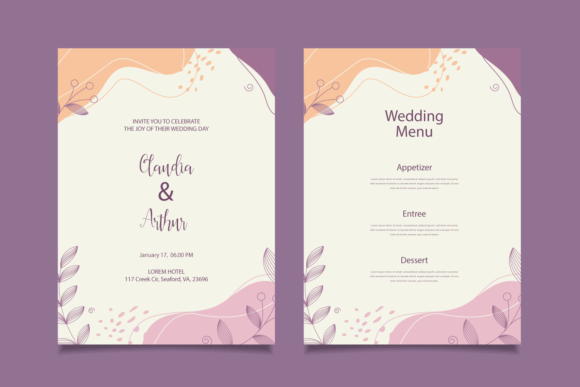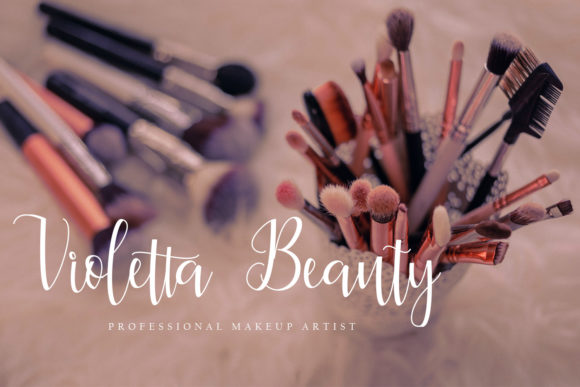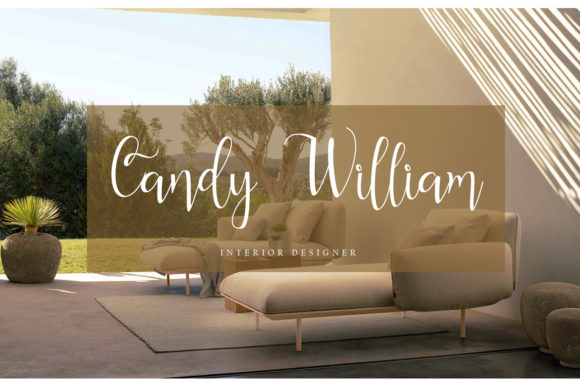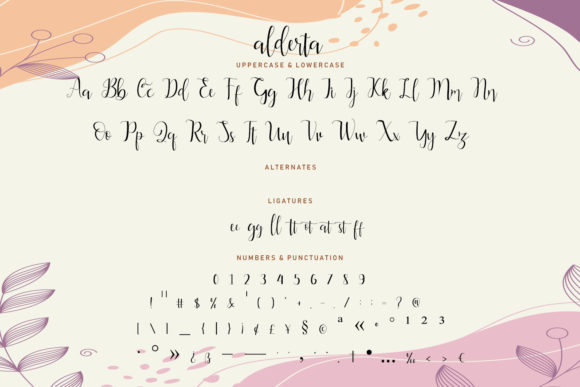
Discover the Elegance of Alderta Font: A Delicate Handwritten Masterpiece
In the world of typography, few fonts manage to capture the essence of elegance and delicacy as effectively as the Alderta Font. This beautifully crafted handwritten font has been making waves among designers and crafters alike, and for good reason. Its distinct, well-rounded letters and incredibly versatile style make it a masterpiece that can elevate any design project to new heights.
The Characteristics of Alderta Font
So, what sets Alderta Font apart from other fonts in its class? For starters, its delicate and elegant appearance is unmatched. Each letter is carefully crafted to exude a sense of refinement and sophistication, making it perfect for designs that require a touch of class. Whether you’re working on a branding project, a wedding invitation, or a packaging design, Alderta Font is sure to impress.
Another notable feature of Alderta Font is its versatility. This font is designed to be incredibly flexible, allowing you to use it in a wide range of design applications. From digital projects like social media graphics and website headers to print materials like brochures and business cards, Alderta Font adapts seamlessly to any design style.
The Benefits of PUA Encoding
One of the most significant advantages of Alderta Font is its PUA (Private Use Area) encoding. But what does this mean, exactly? In simple terms, PUA encoding allows you to access a wide range of glyphs and swashes with ease. This means that you can add an extra layer of creativity and personality to your designs, taking them from ordinary to extraordinary.
With PUA encoding, you can easily access alternative characters, ligatures, and swashes, giving you the freedom to experiment with different design elements. This feature is especially useful for designers who want to create unique and eye-catching designs that stand out from the crowd.
Why Designers and Crafters Love Alderta Font
So, why have designers and crafters fallen in love with Alderta Font? The answer lies in its unique combination of elegance, versatility, and creativity. Here are just a few reasons why this font has become a favorite among design enthusiasts:
- Elegant and Refined: Alderta Font’s delicate appearance makes it perfect for designs that require a touch of sophistication.
- Versatile: This font can be used in a wide range of design applications, from digital projects to print materials.
- Creative Freedom: With PUA encoding, you have access to a wide range of glyphs and swashes, giving you the freedom to experiment with different design elements.
Tips for Using Alderta Font in Your Designs
Now that you’re familiar with the benefits of Alderta Font, here are a few tips for incorporating it into your designs:
- Pair it with Bold Fonts: Combine Alderta Font with bold, contrasting fonts to create visual interest and hierarchy.
- Experiment with Swashes: Take advantage of PUA encoding to add creative swashes and glyphs to your designs.
- Use it for Headings and Titles: Alderta Font’s elegant appearance makes it perfect for headings and titles.
- Don’t be Afraid to Get Creative: With Alderta Font, the possibilities are endless. Don’t be afraid to experiment and try new things!
In conclusion, Alderta Font is a delicate and elegant handwritten font that has captured the hearts of designers and crafters alike. Its distinct and well-rounded letters, incredibly versatile style, and PUA encoding make it a masterpiece that can elevate any design project. Whether you’re working on a branding project, a wedding invitation, or a packaging design, Alderta Font is sure to impress. So why not give it a try and see the magic for yourself?